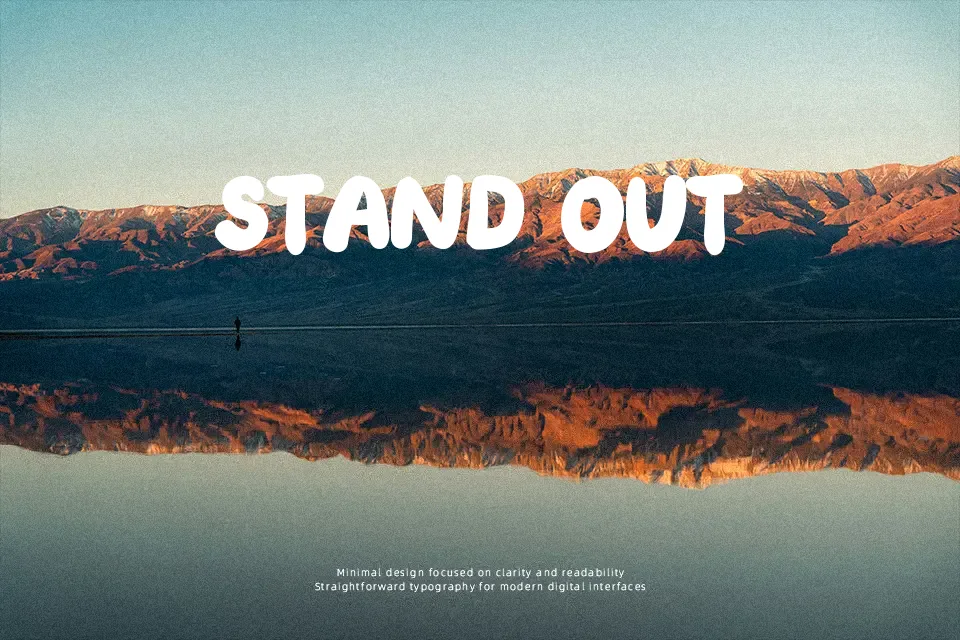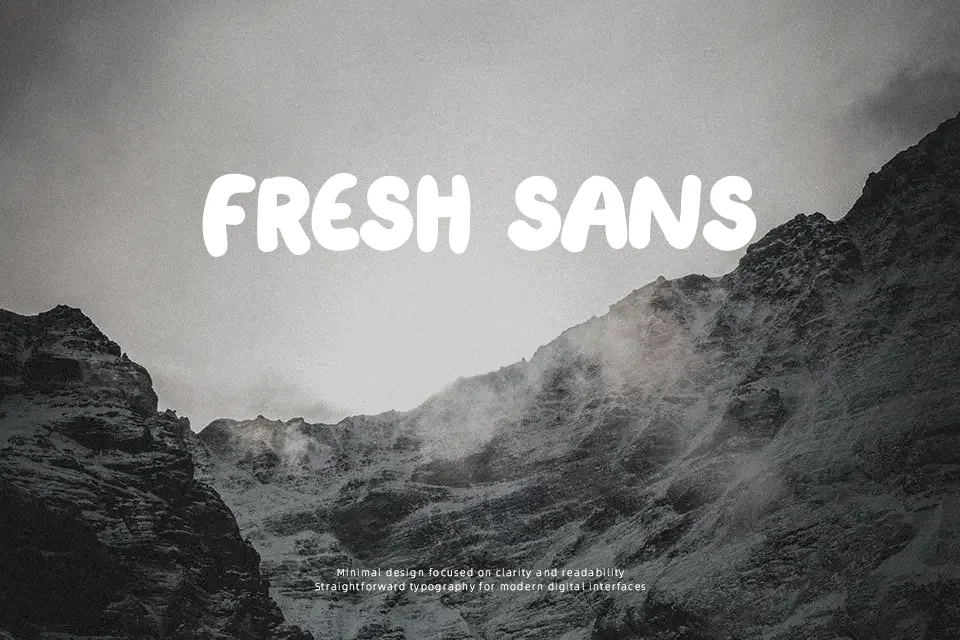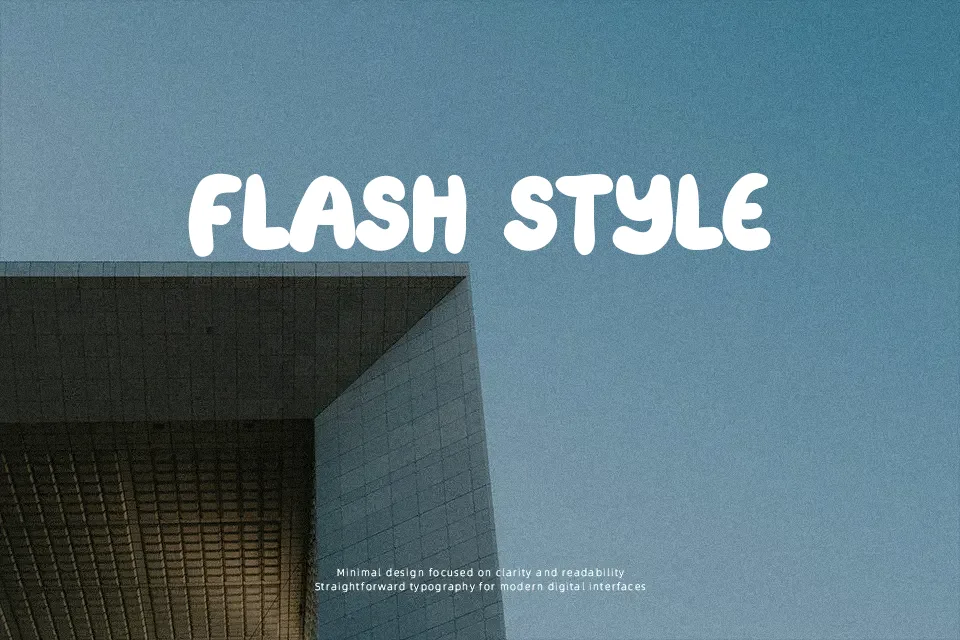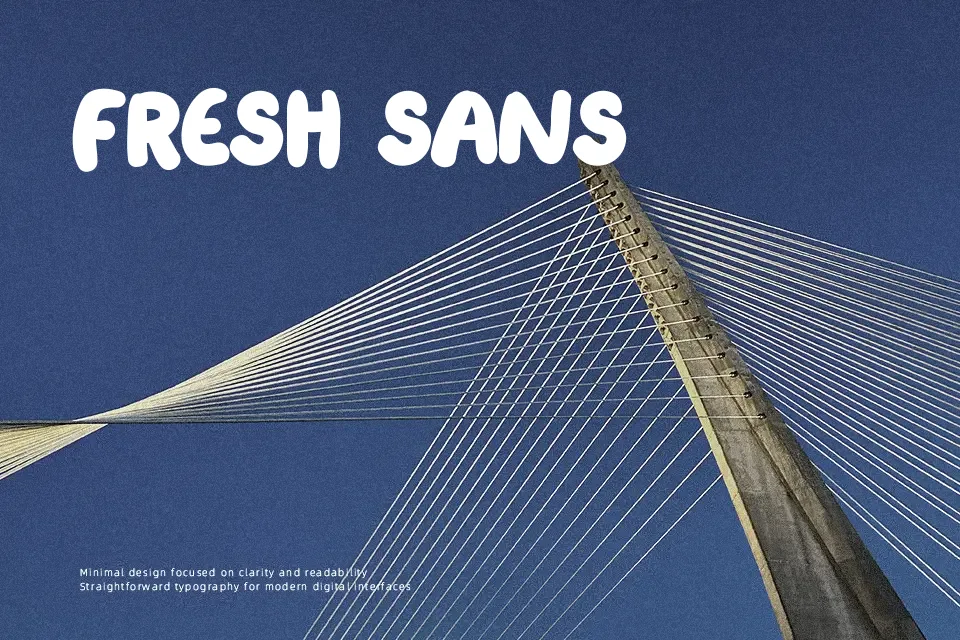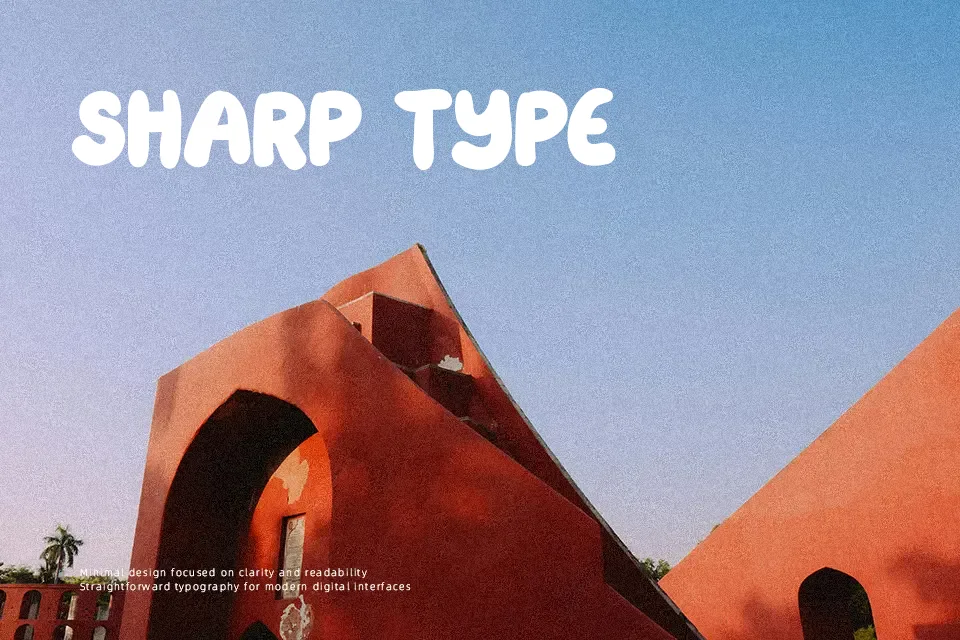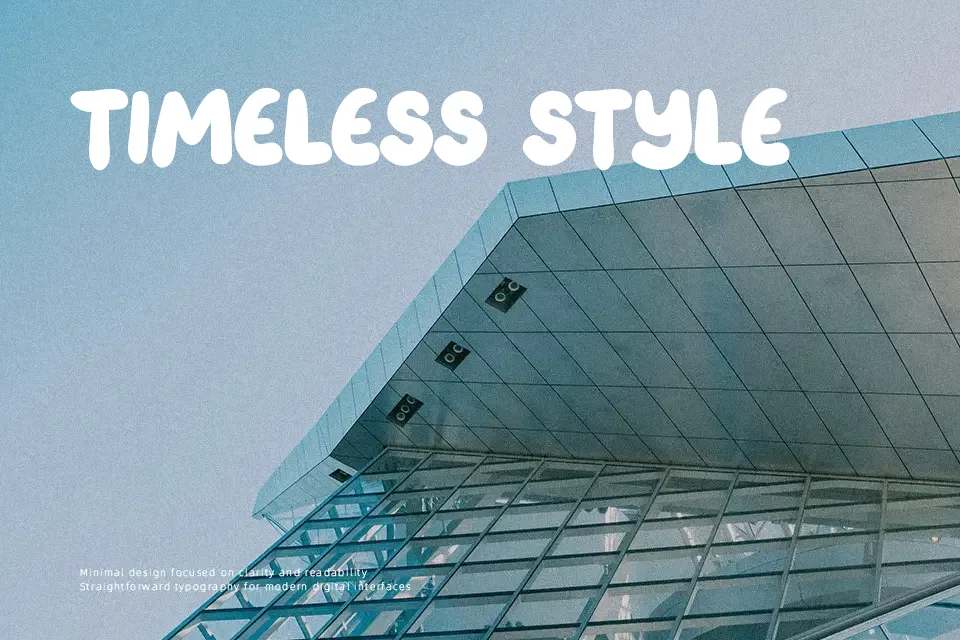
Bebalon Blue Font
The strokes are thick and bouncy, with exaggerated roundness that gives every letter a soft, inflated look. Spacing is loose enough to prevent visual clutter, but the cartoonish structure limits its versatility outside casual contexts. This font feels energetic and approachable, making it suitable for children’s book covers, DIY party invitations, or social media call-outs where attention matters more than polish. However, the bubble style quickly becomes overwhelming in longer layouts—anything beyond a headline or short phrase starts to feel cluttered and juvenile. It’s not a typeface you’d pair with minimalist design or corporate identity work. The playful weight and rounded terminals make it memorable in small doses, but the novelty wears thin when overused. If you need something bold and fun for a one-off design, it delivers; for cohesive brand systems or editorial projects, it falls short.
Best For:- Kids’ party invitations
– YouTube thumbnail text
– Ice cream shop signage
– Gaming stream overlays
Not Ideal For:- Multi-page magazines
– Corporate presentations
– Minimalist web interfaces
– Legal documents